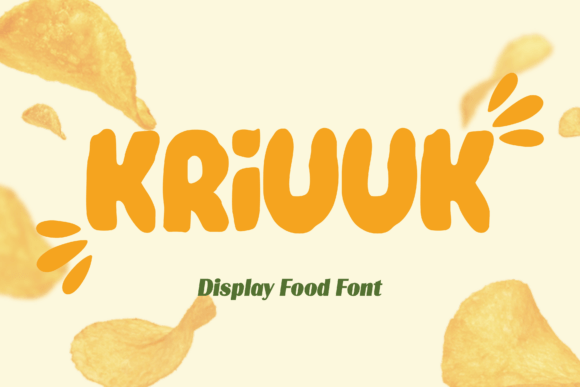
Crispy Font
ntroducing Crispy – a savory and crunchy blend of cute looks and style that brings a splash of sunshine to your creative projects. This cheerful font is perfect for a variety of themes, including summer, spring, fall, autumn, kids, back to school, labels, packaging, Valentine’s Day, Mother’s Day, crafts, greeting cards, decorations, craft lettering, and embroidery.